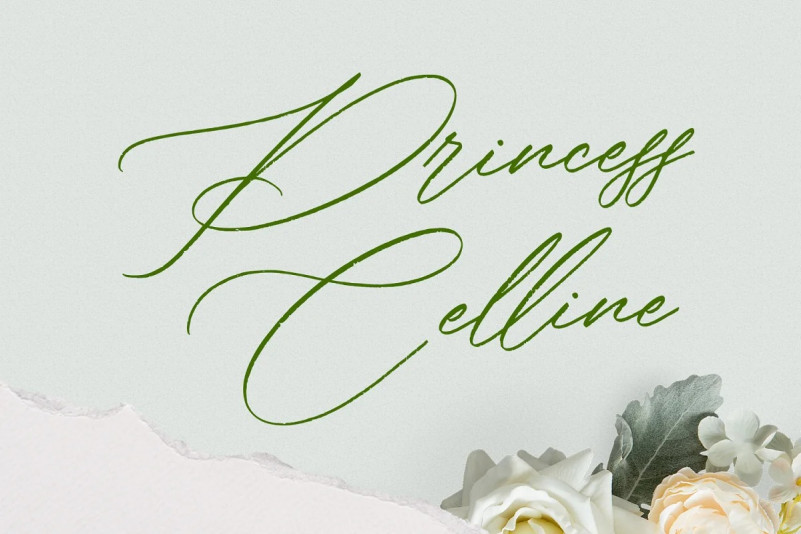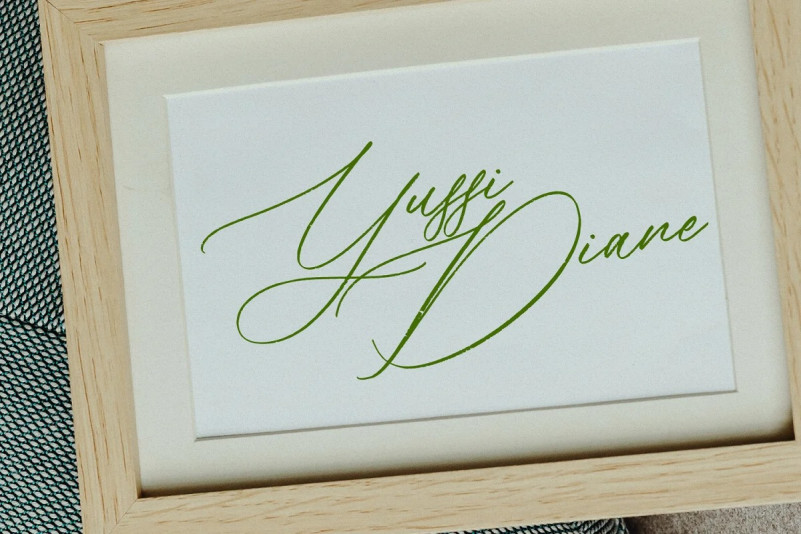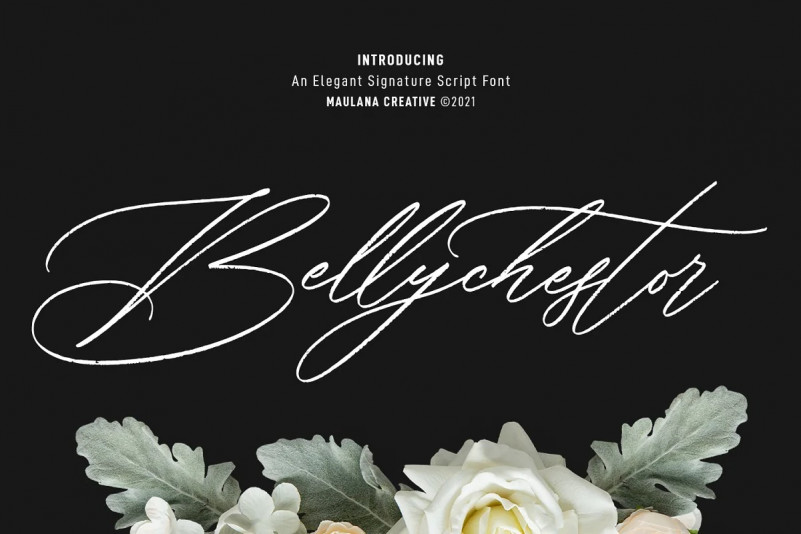
Bellychestor Script Font
Hello, this time we want to introduce a new product. Bellychestor is an elegant beautiful and feminine script font. With regular rough stroke, fun character and some of ligatures. To give you an extra creative work. Bellychestor font support multilingual more than 100+ language. This font is good for logo design, Social media, Movie Titles, Books Titles, a short text even a long text letter and good for your secondary text font with sans or serif. Make a stunning work with Bellychestor font.